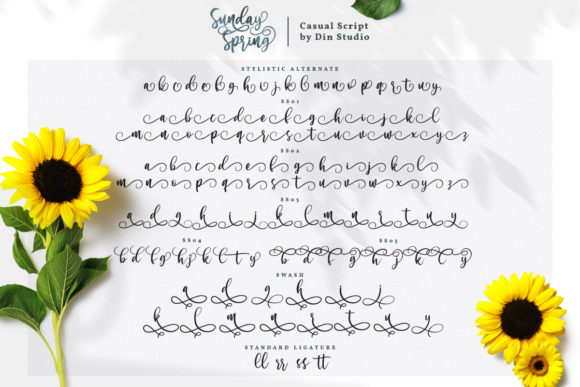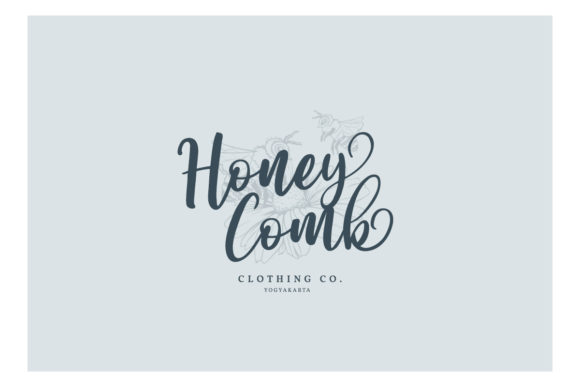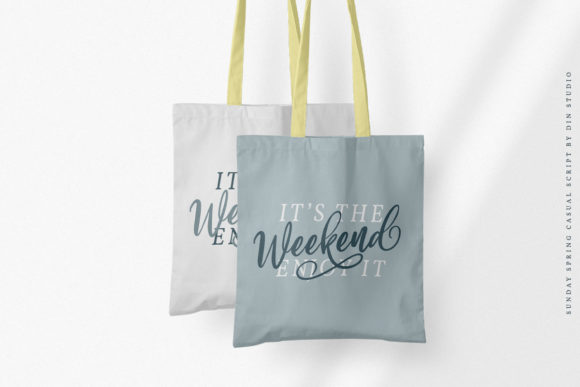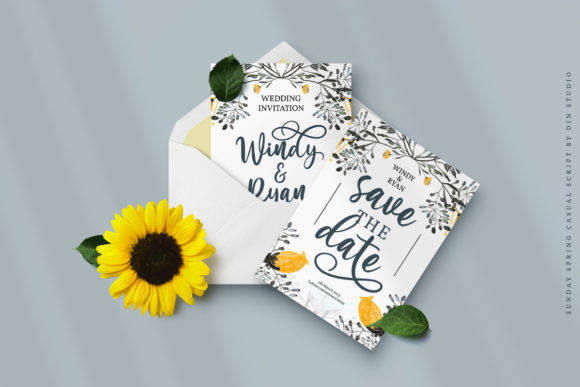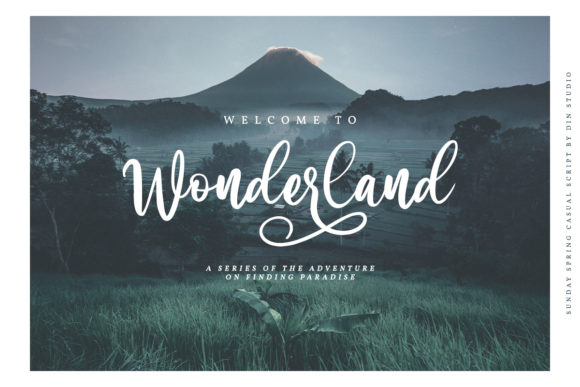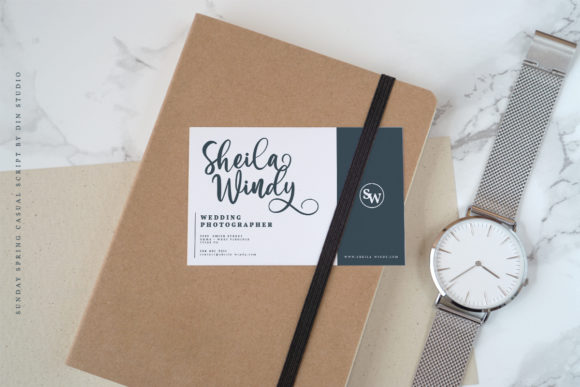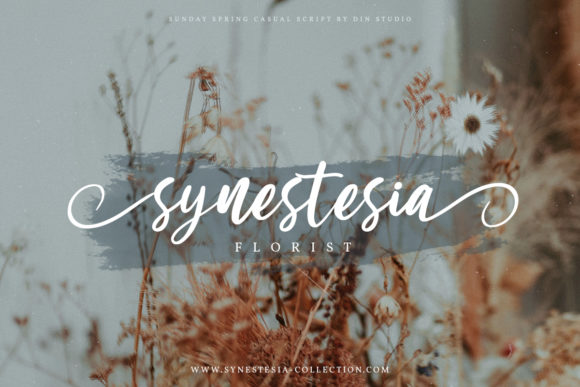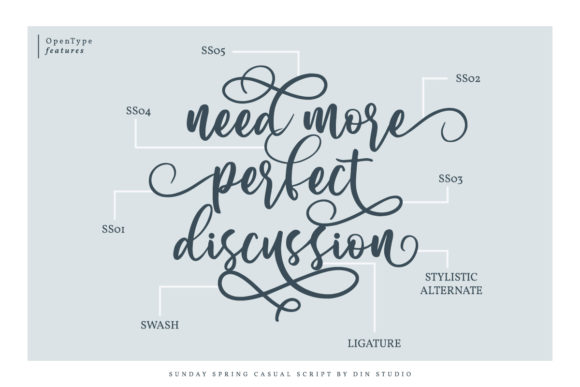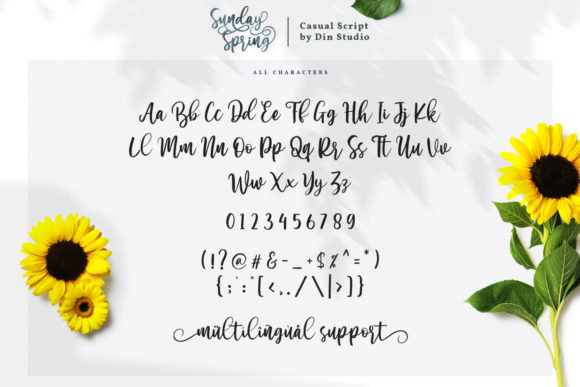
Sunday Spring Font
About Sunday Spring Font
Sunday Spring is a casual, fun script font, created by using a brush pen. Clean and a little bit quirky, this font is the perfect fit for all of your logos, branding, social media, and crafty DIY projects.